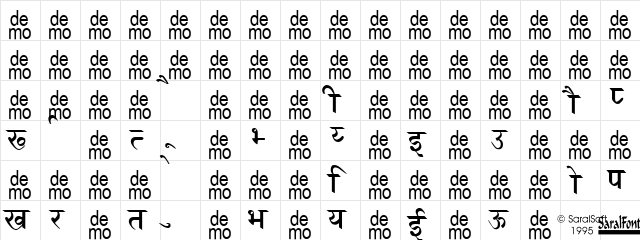
Marathi Saral-DEMO Normal
Design Context for Marathi Saral-DEMO Typeface
Marathi Saral-DEMO offers clean, dependable letterforms without strong stylistic allegiance, making it a practical choice for designers who need flexibility.